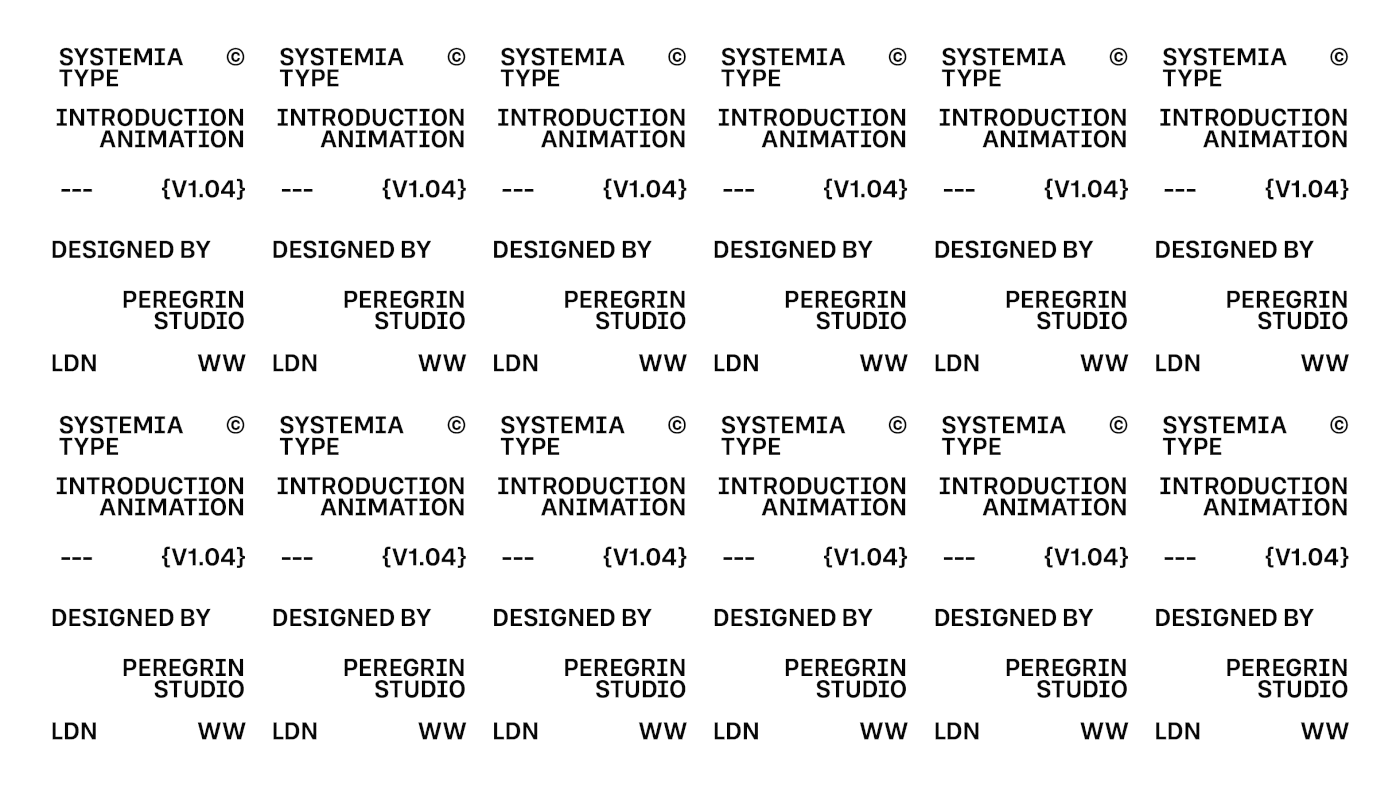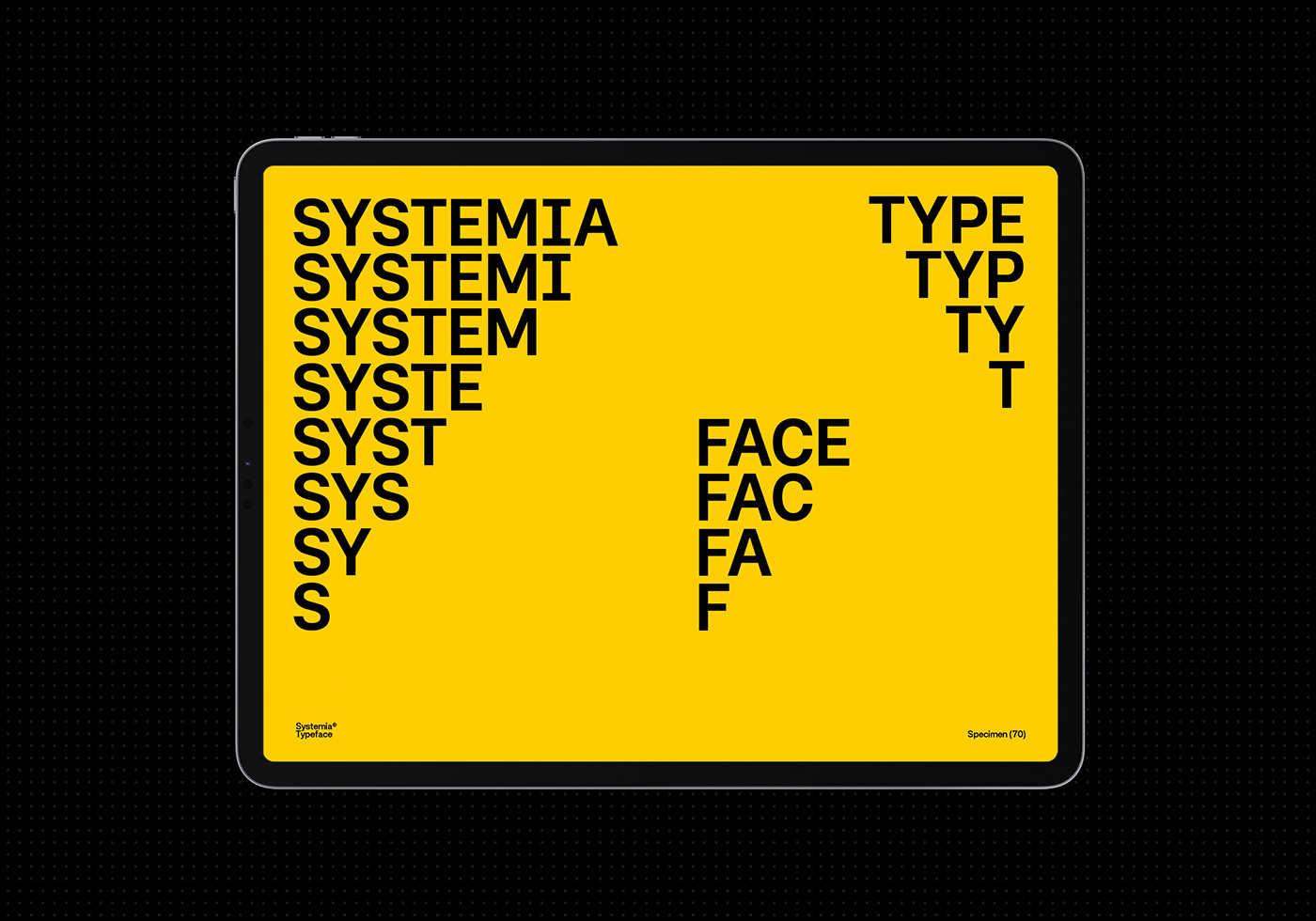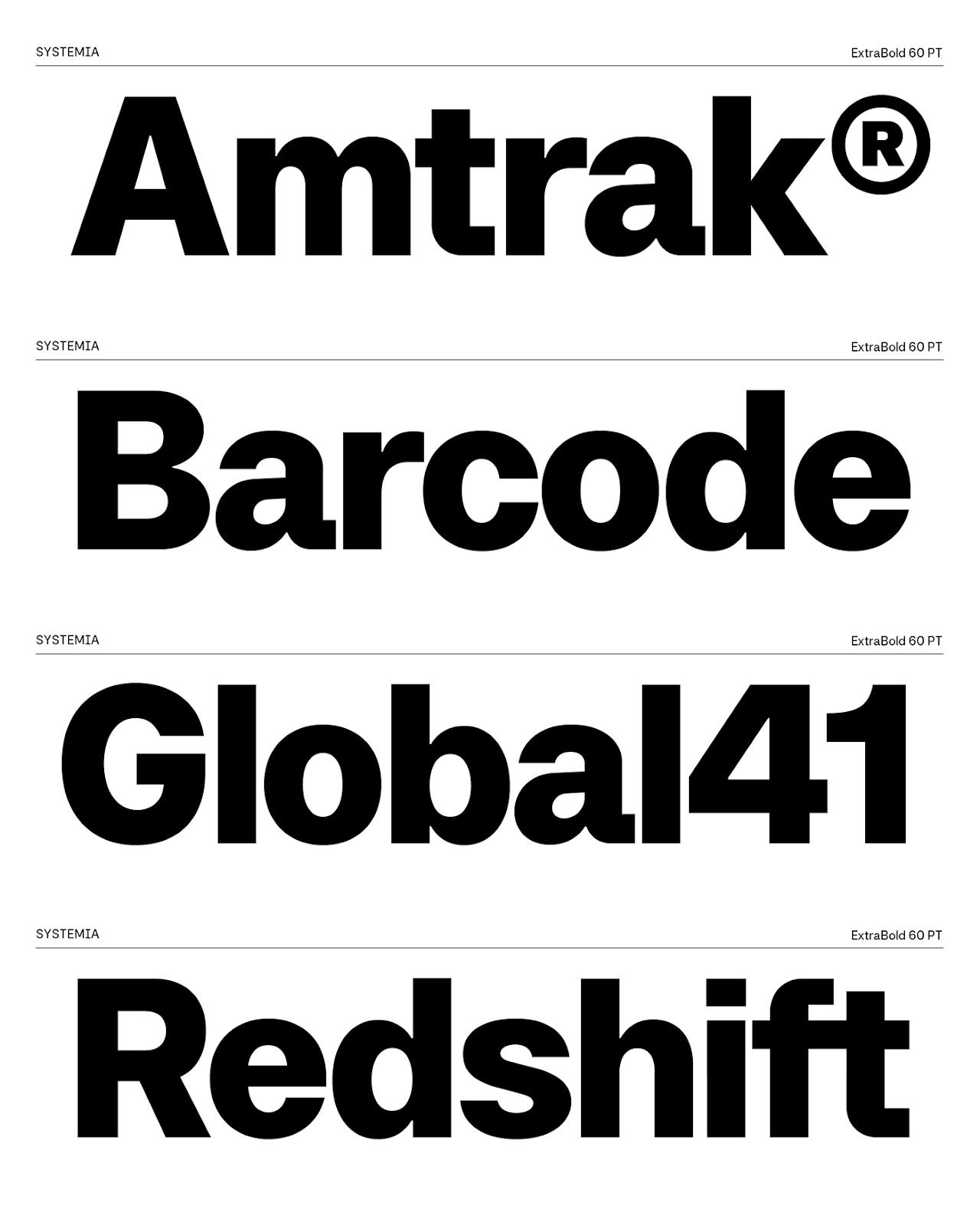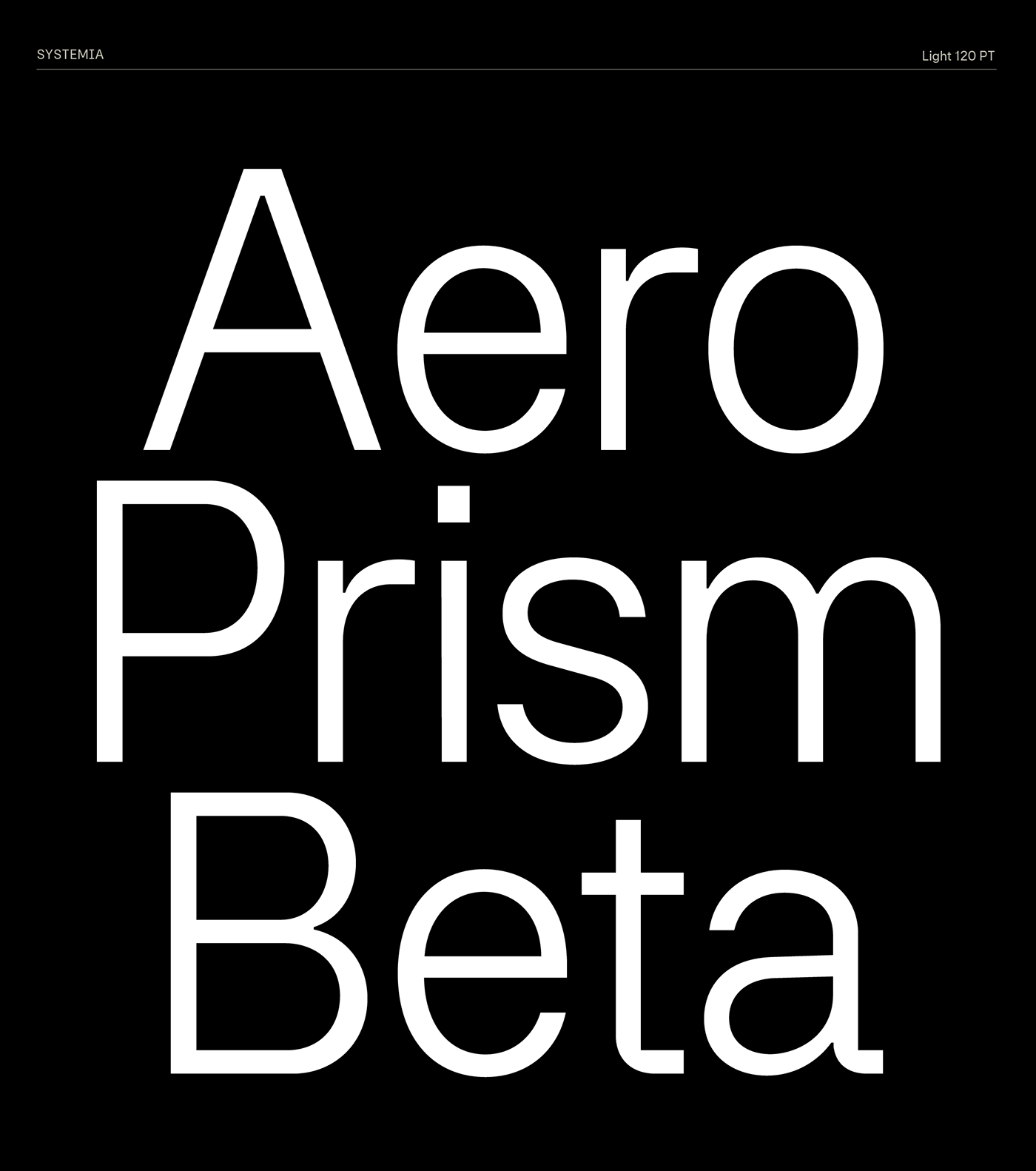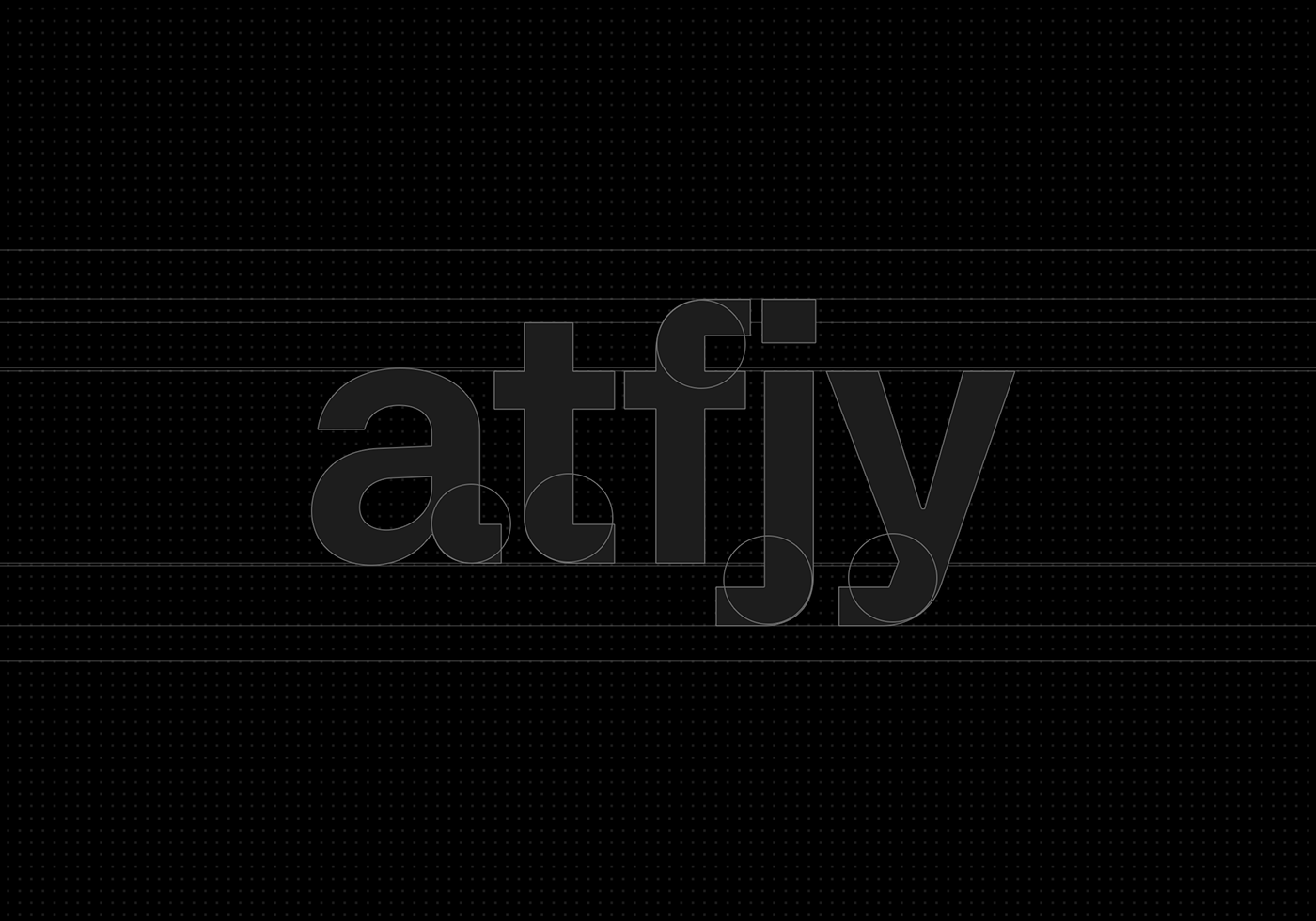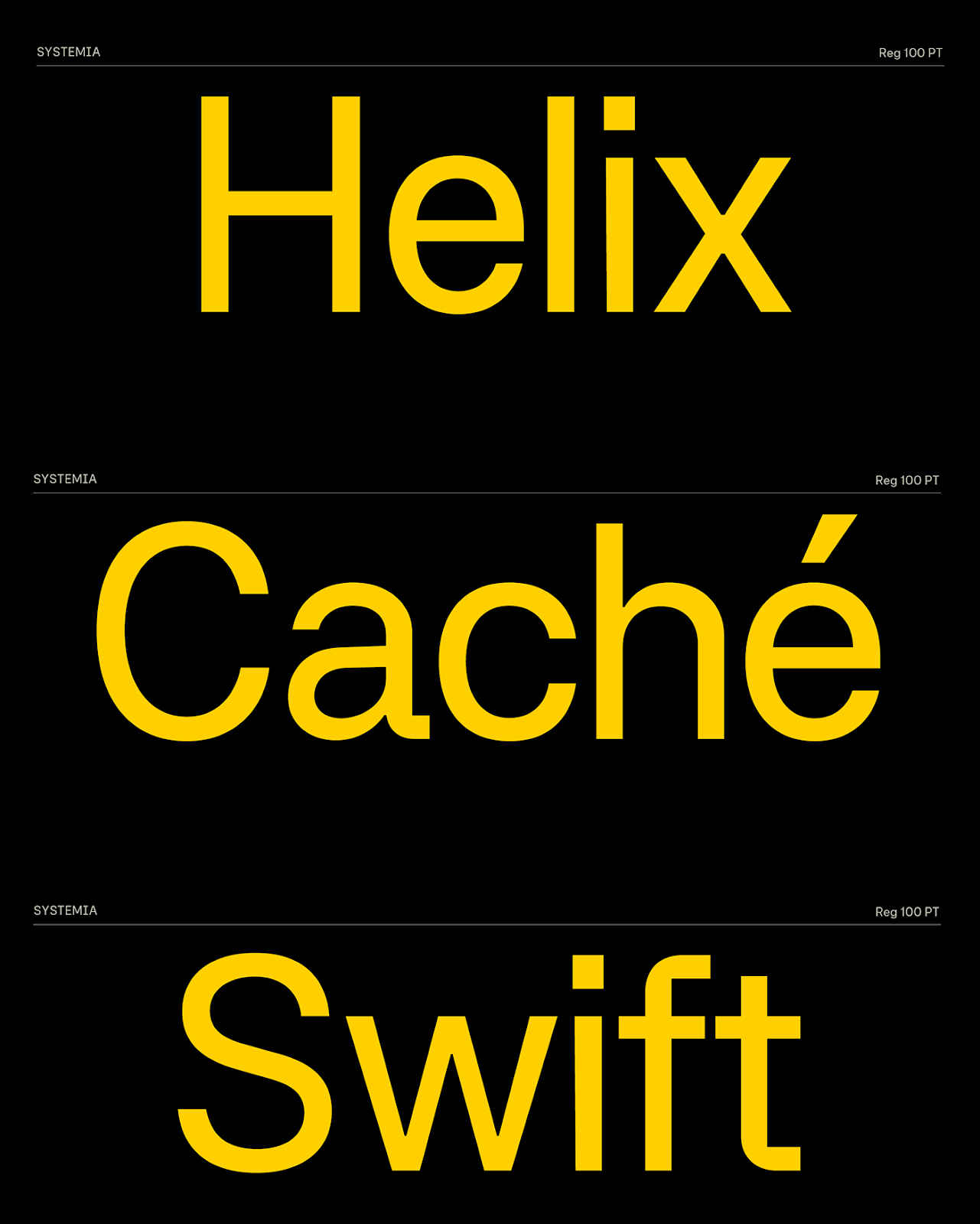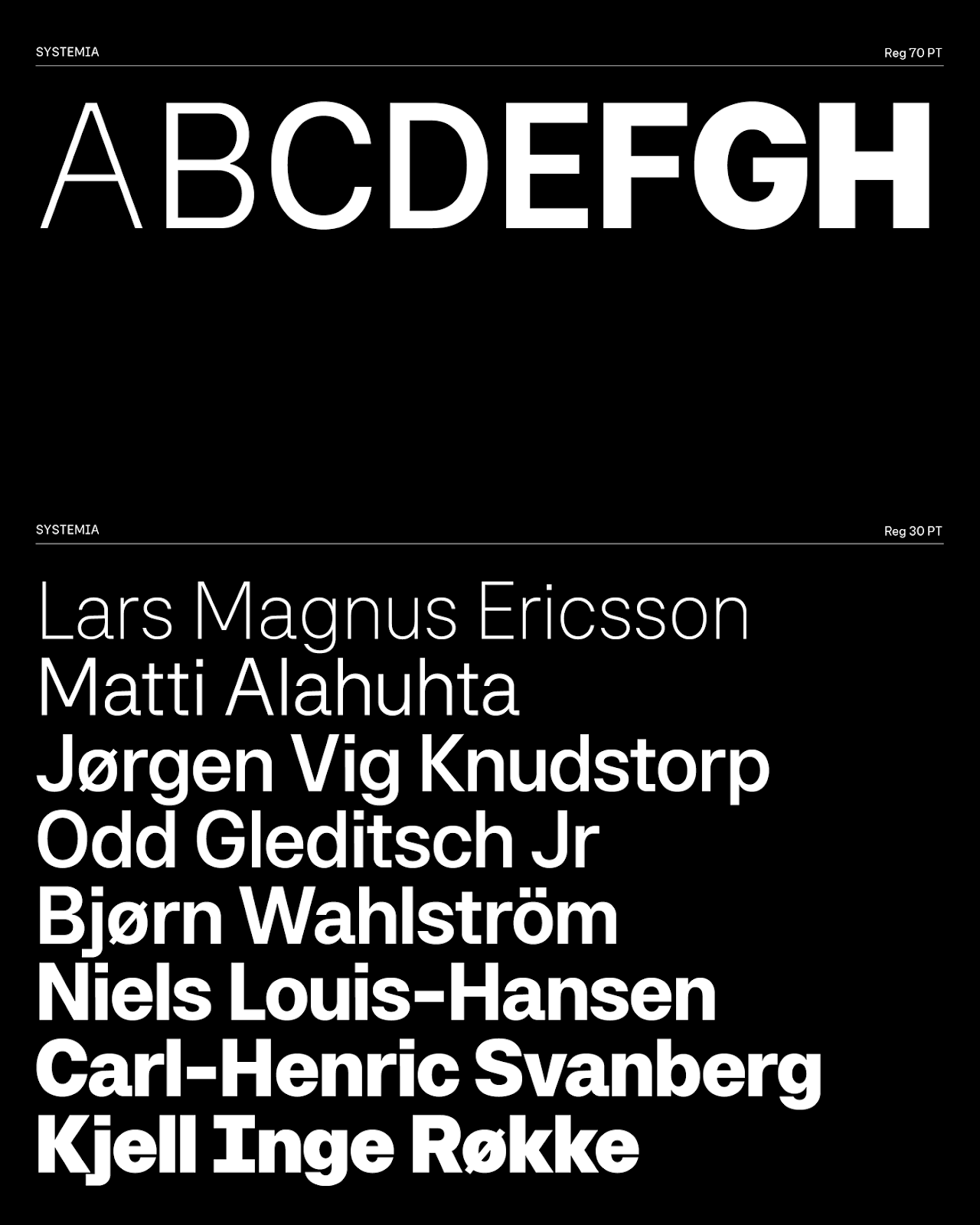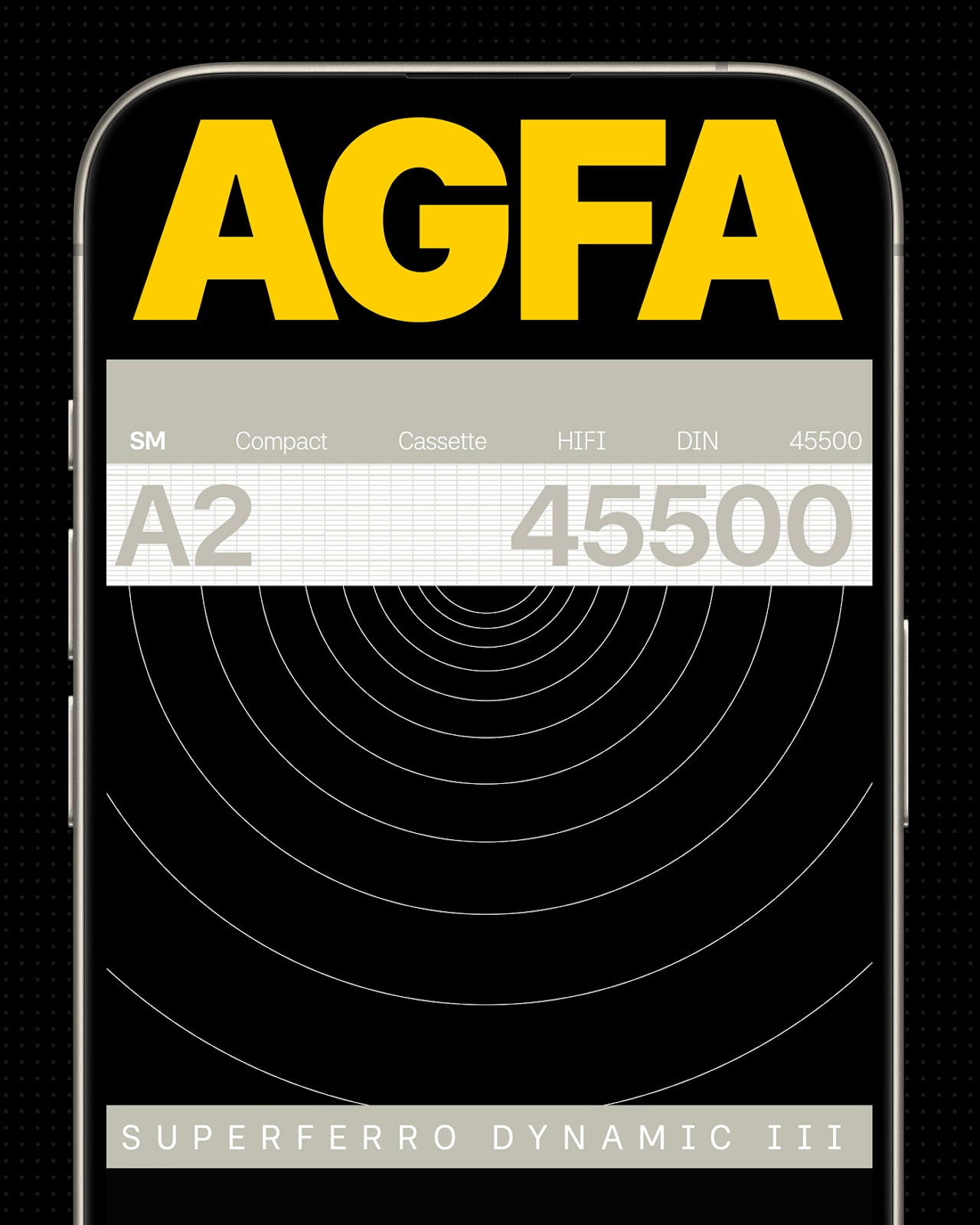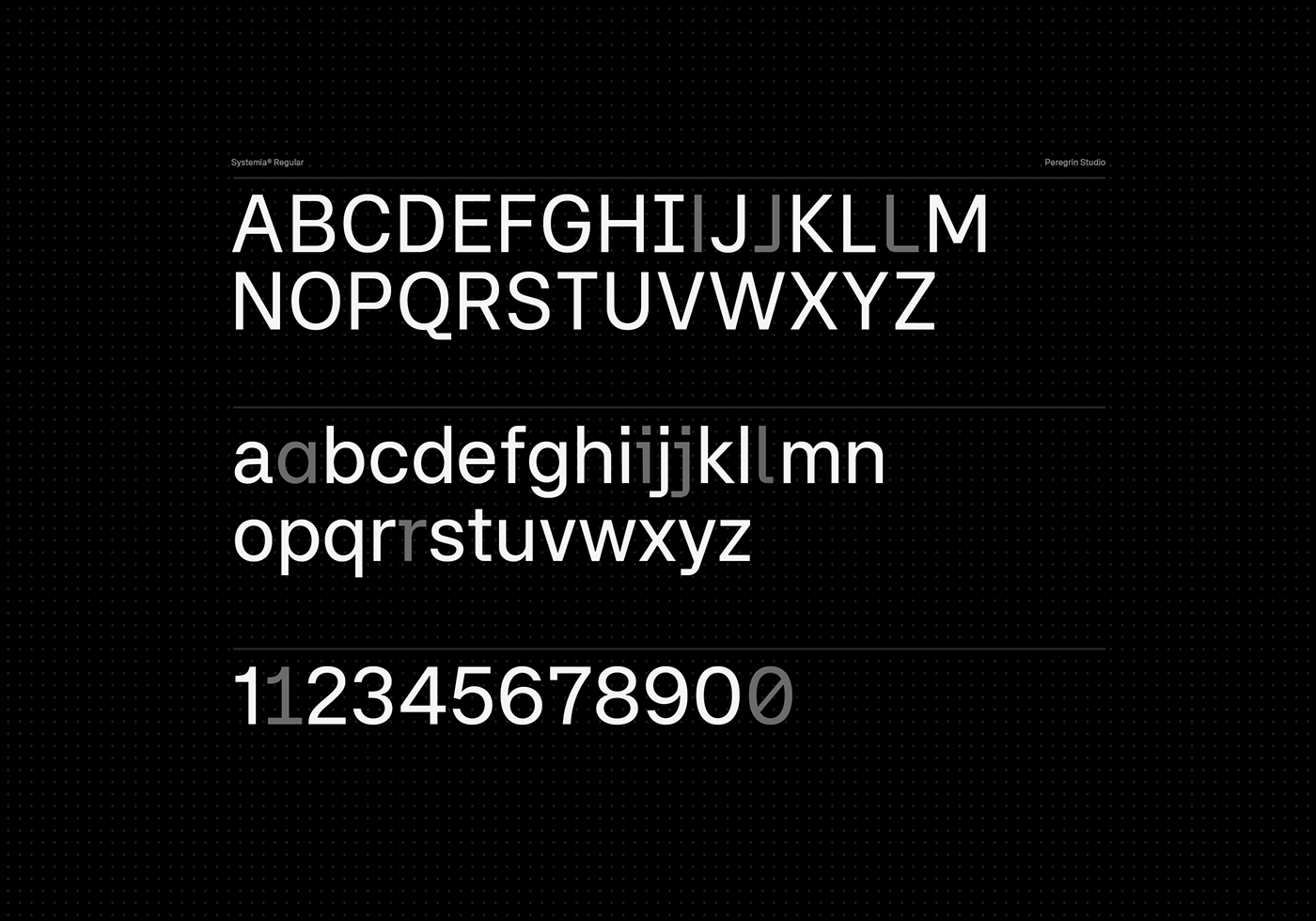
In the dynamic heart of London, Peregrin Studio emerges as a beacon of design innovation. Their latest creation, the Systemia® Typeface, is not just a font; it's a meticulous blend of classic Swiss finesse, the technical allure of monospace typefaces, and a nod to the iconic 80s technology design scene. Join us as we delve into the captivating narrative behind Peregrin Studio's foray into timeless innovation. Nestled in the creative landscape of London, Peregrin Studio stands as a testament to the city's vibrant design ethos. Their team of design alchemists, led by a commitment to innovation, has consistently pushed the boundaries of conventional design, earning accolades for their forward-thinking approach. Systemia® is more than a typeface; it's a visual symphony that harmonizes the elegance of classic Swiss grotesque design with the unmistakable vibe of the 80s technology scene. Peregrin Studio draws inspiration from the geometric precision of Swiss type and infuses it with the nostalgia of an era that defined the aesthetics of technology. Drawing from the rich tradition of Swiss design, Systemia® exhibits a level of precision that is synonymous with the genre. Every curve, every line is meticulously crafted to embody the finesse that has defined Swiss typography for generations. The 80s technology design scene left an indelible mark on visual culture, and Systemia® pays homage to this iconic era. The typeface captures the essence of pixelated graphics, neon hues, and the avant-garde design language that defined a period of rapid technological advancement.
As Systemia® graces the design landscape, its impact reverberates beyond its visual allure. Peregrin Studio's creation becomes a catalyst for a new wave of design, influencing how brands, publications, and creatives communicate in a digital age that values both innovation and heritage.